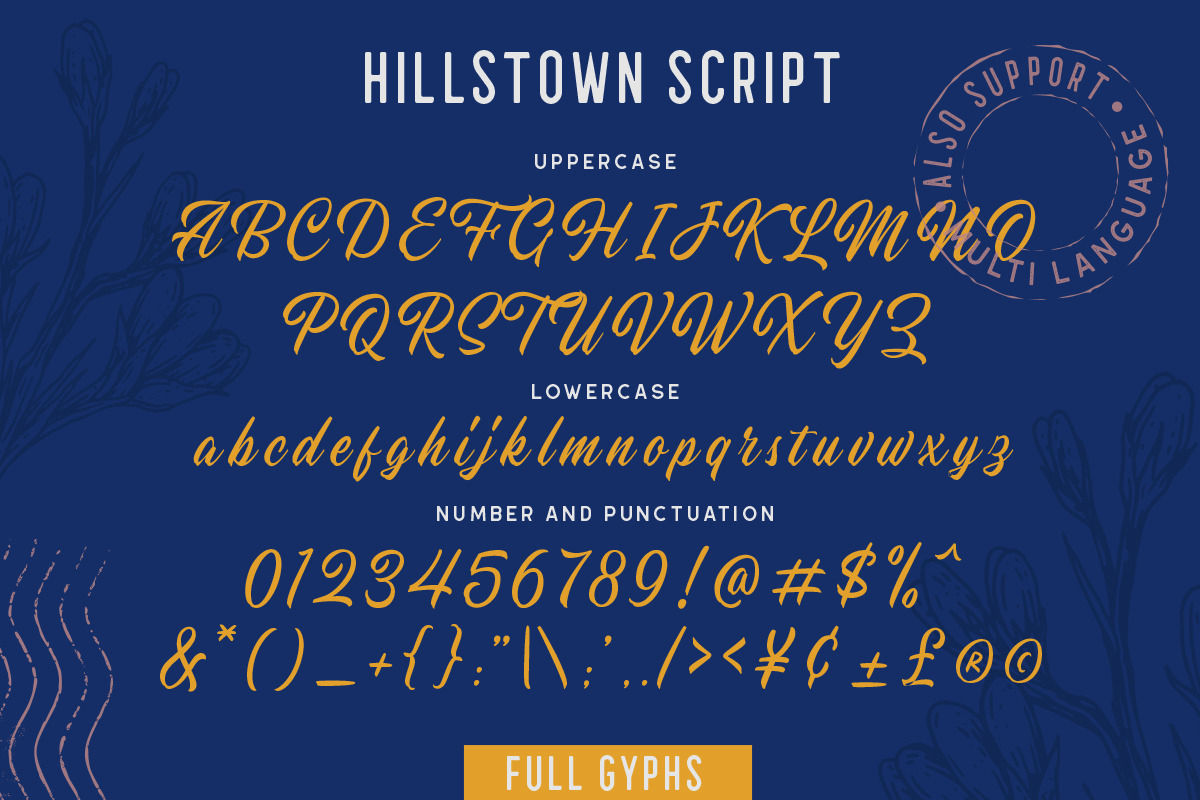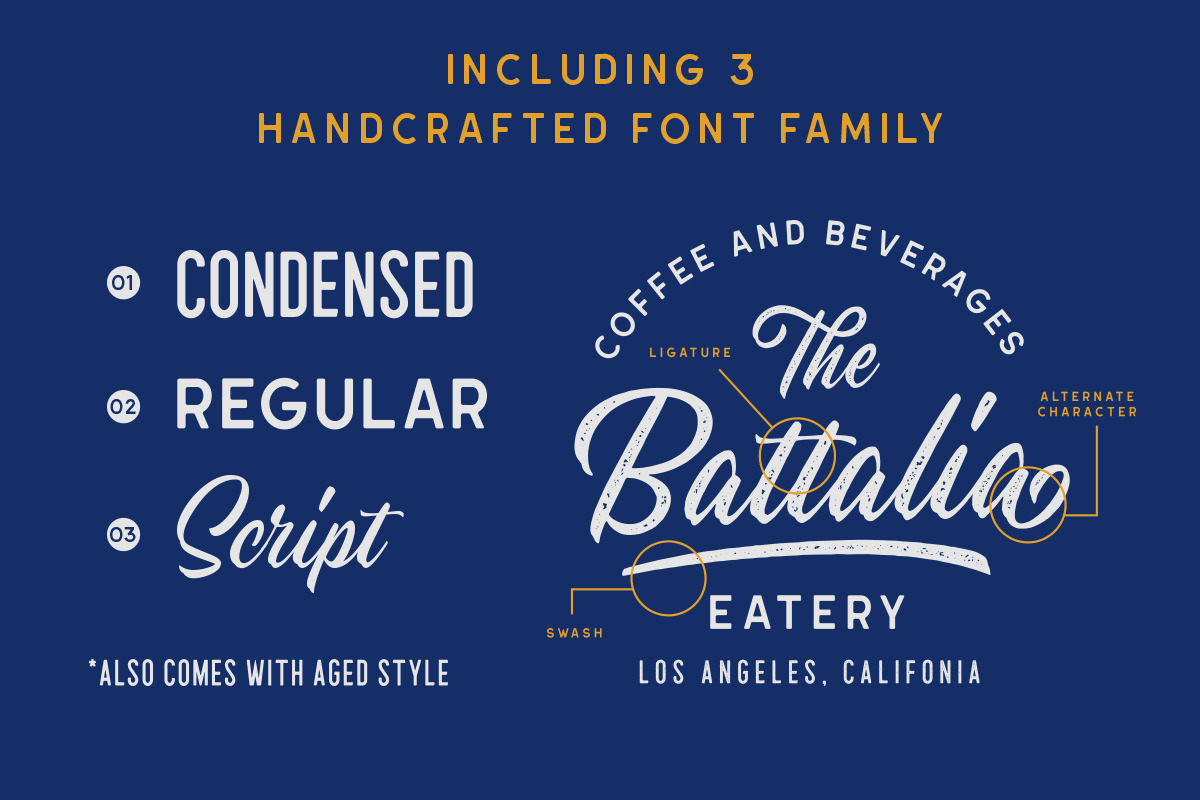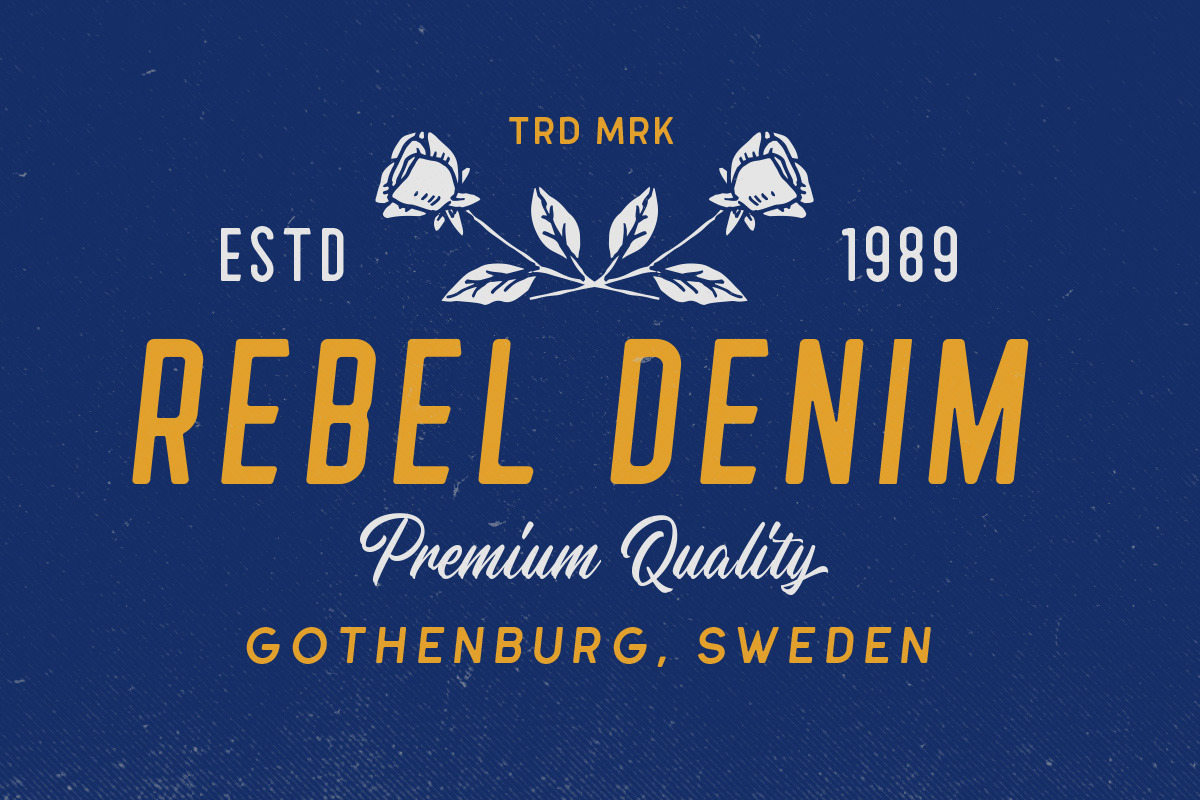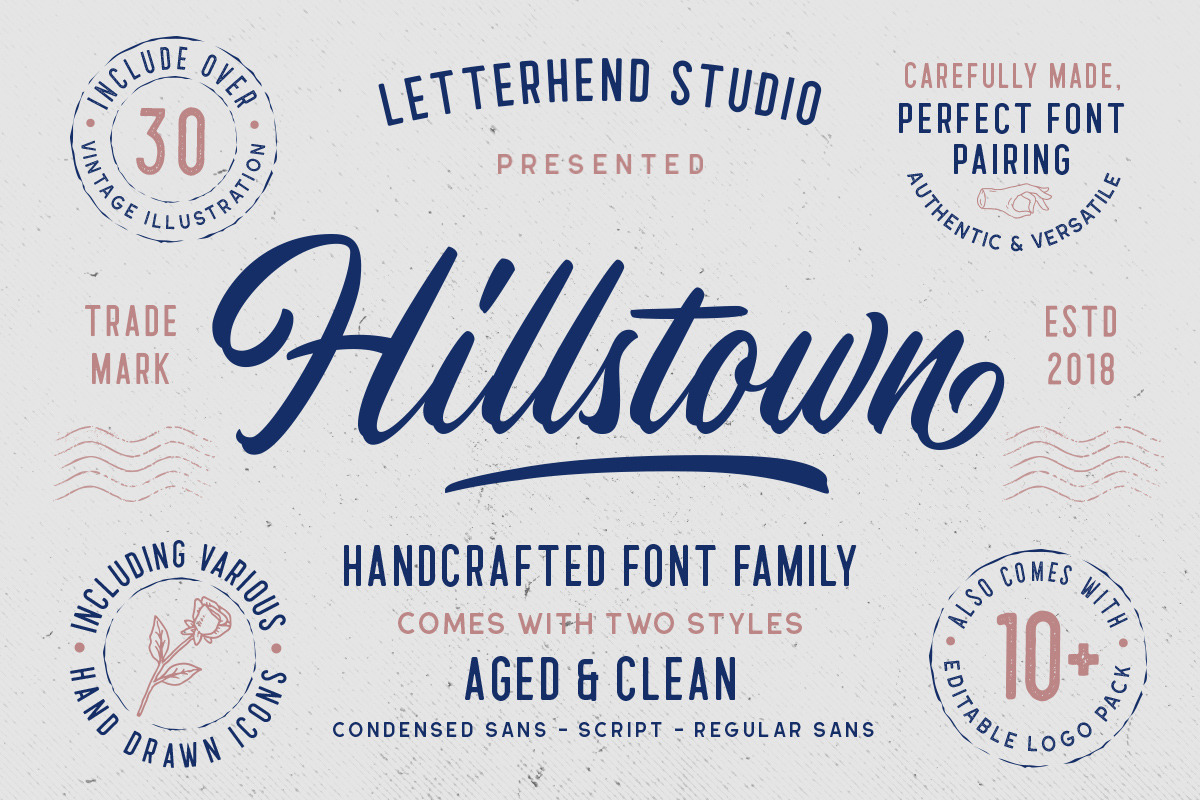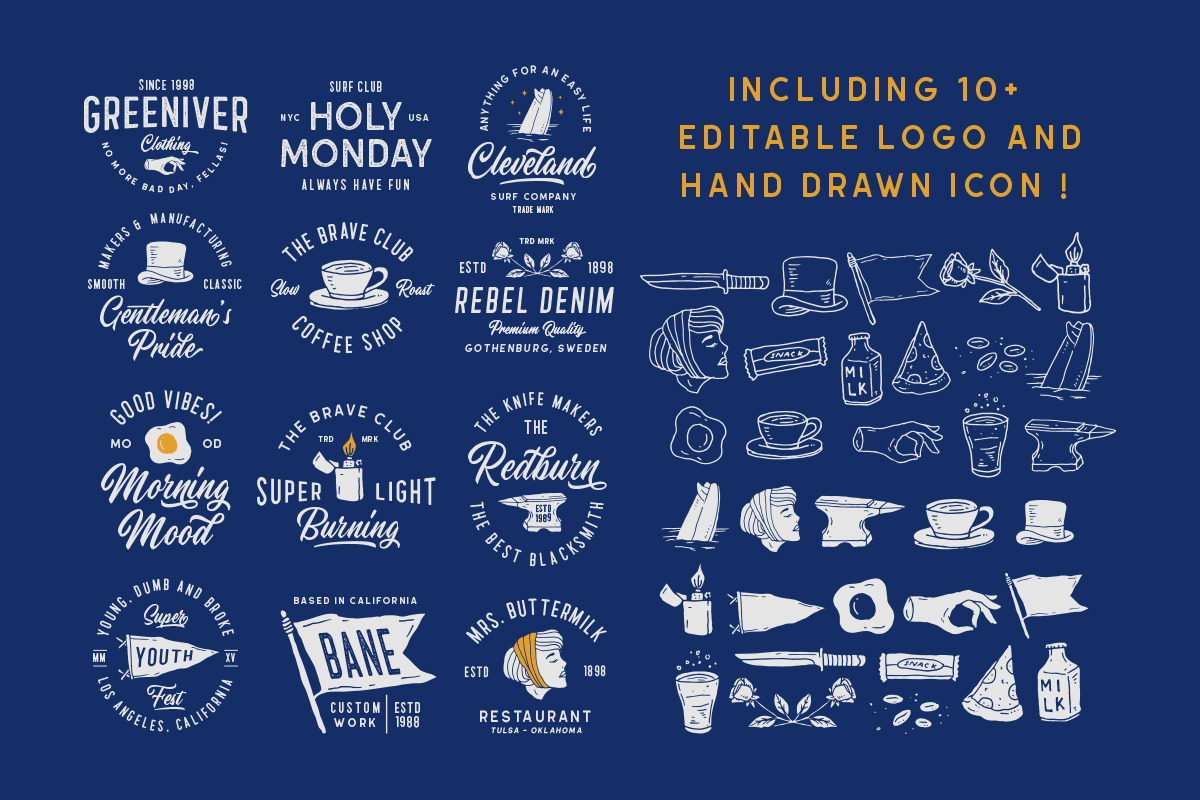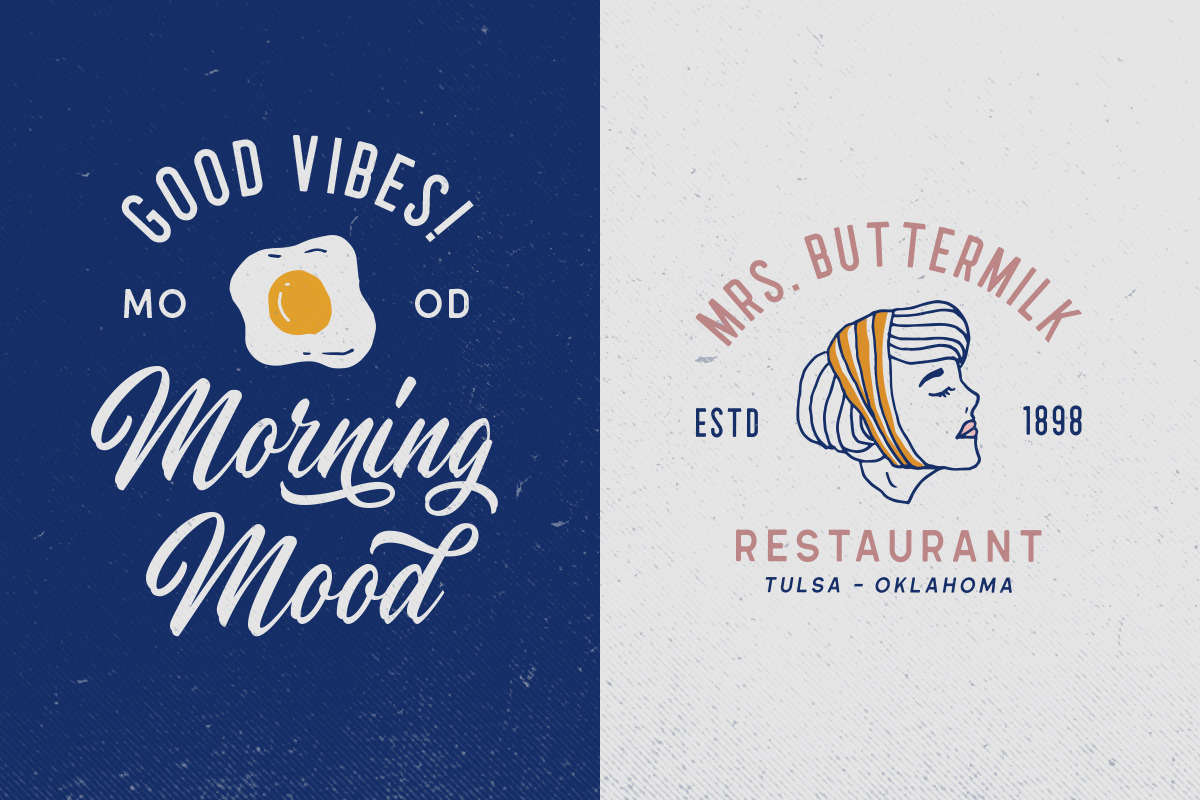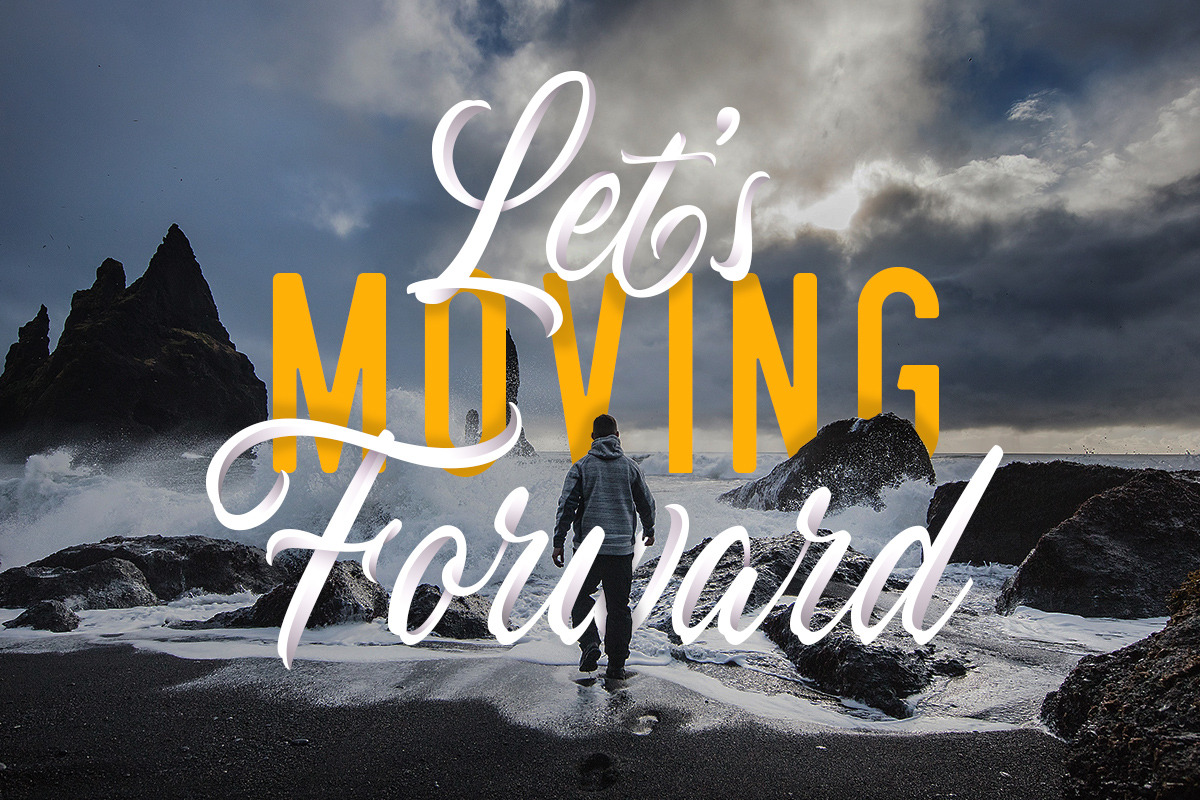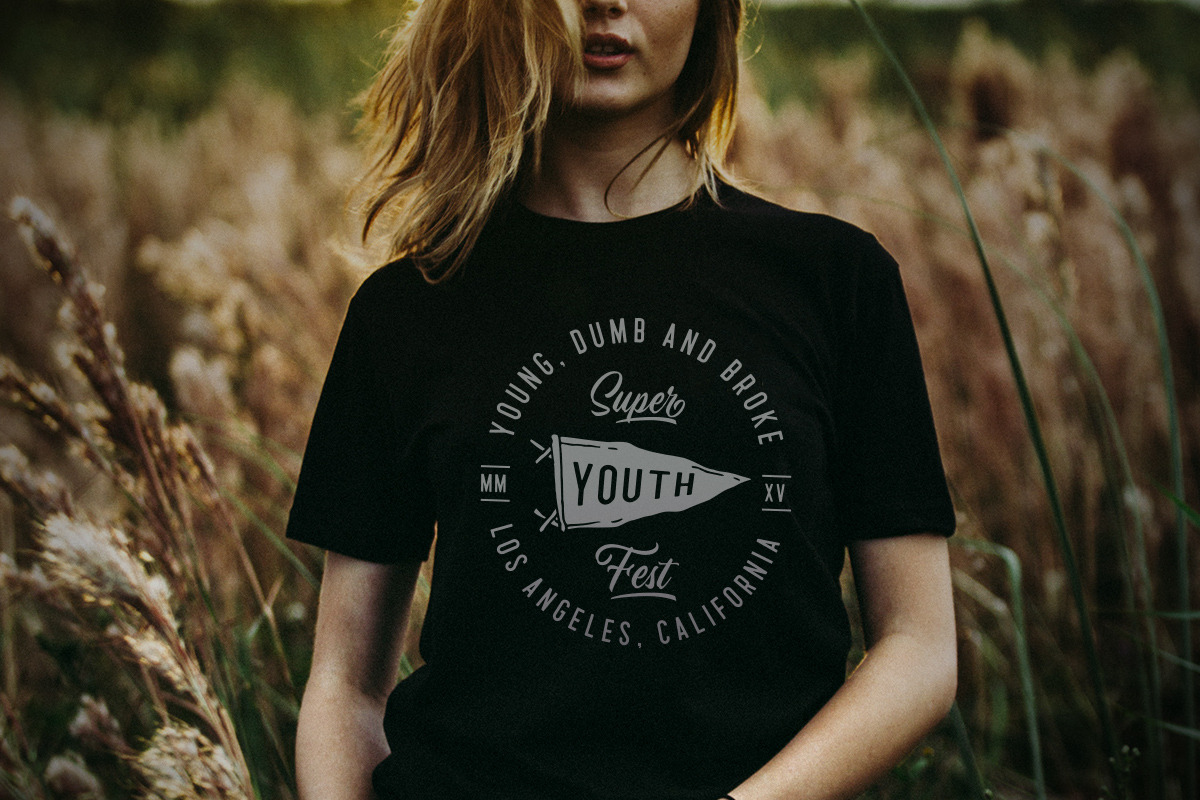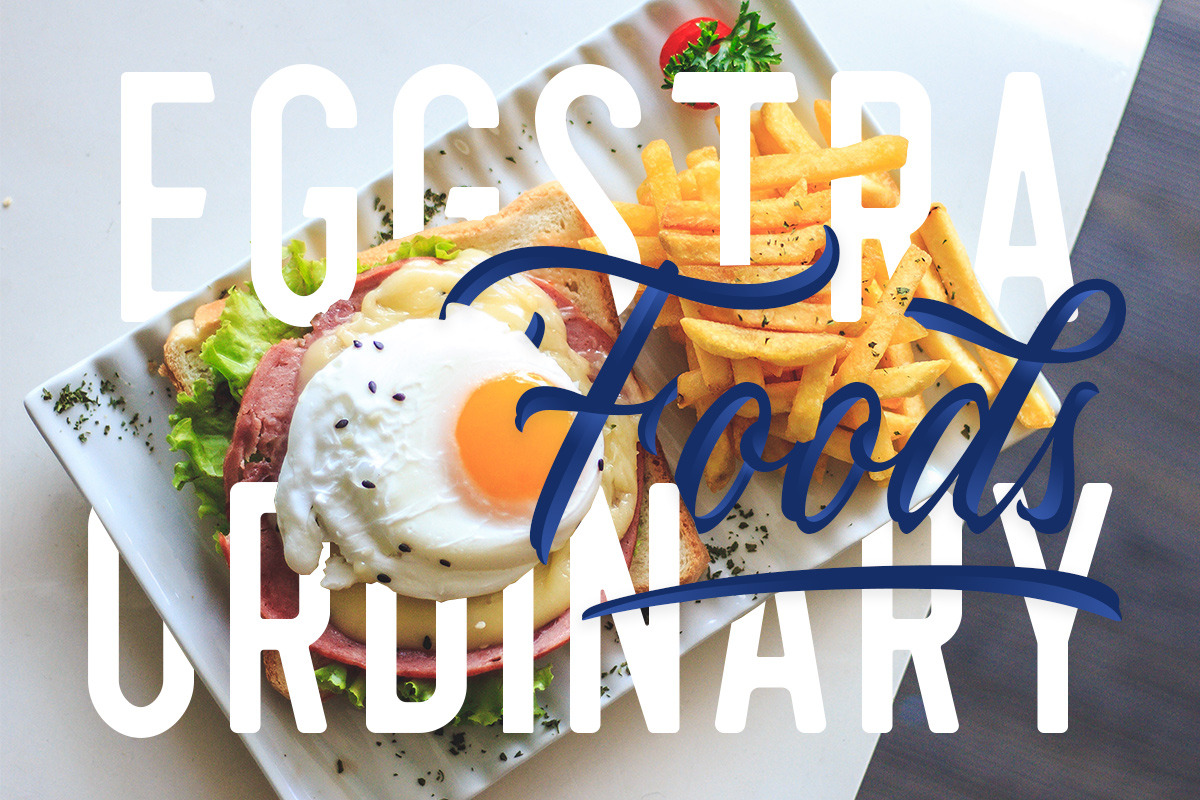
Hillstown Font Collection (+EXTRA)
Introducing, Hillstown Font Collection (+EXTRA)
Hillstown Font Collection (+EXTRA) is a font collection that contains completely three different font that will perfectly complement each other. You will get script, sans, and condensed sans. It also comes with a clean and aged style each font. The classic feel is really perfect for you who needs a typeface for especially logotype, apparel, invitation, branding, packaging, advertising etc. This typeface is comes in uppercase, lowercase, punctuations, symbols & numerals, 09 stylistic set alternate, ligatures, etc also support multilingual and already PUA encoded.
Foreign Languages Support: ÀÁÂÃÄÅÇÈÉÊËÌÍÎÏÑÒÓÔÕÖØÙÚÛÜÝßàáâãäåæçèéêëìíîïñòóôõöøùúûüýÿ